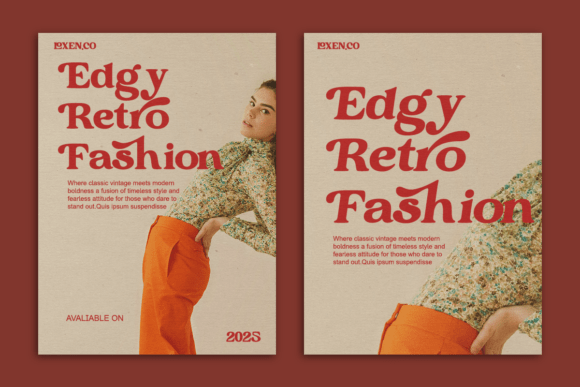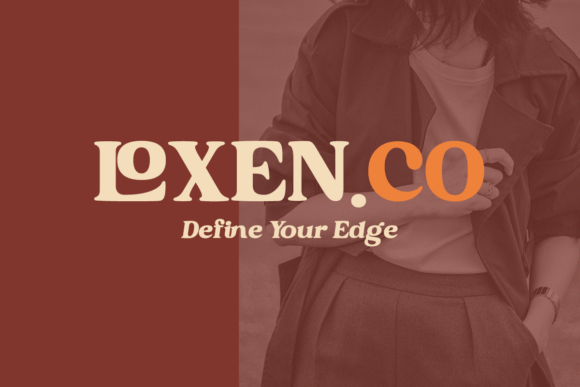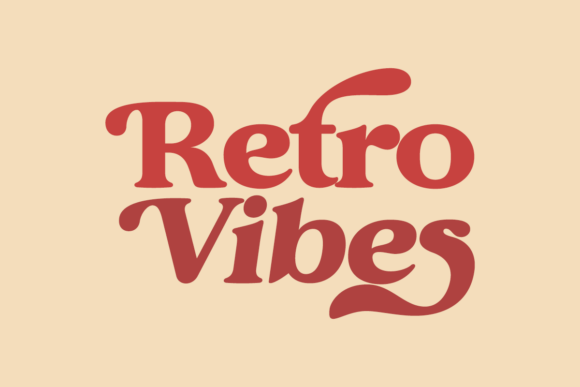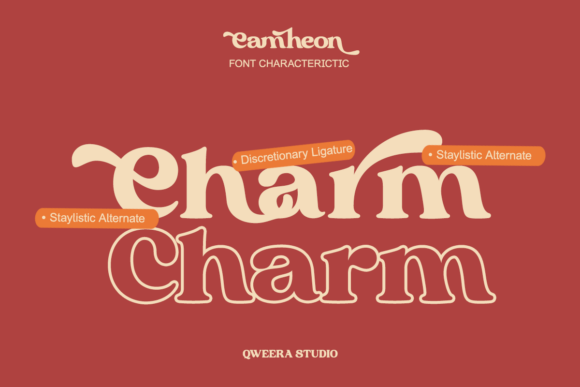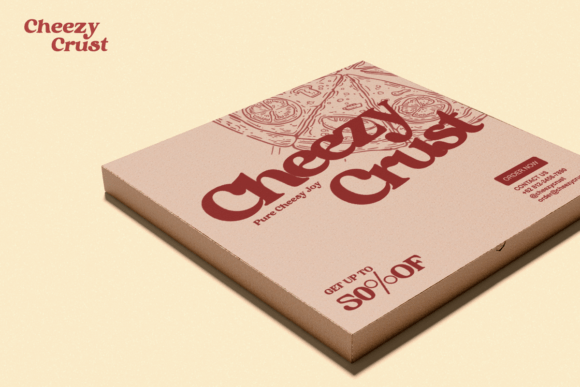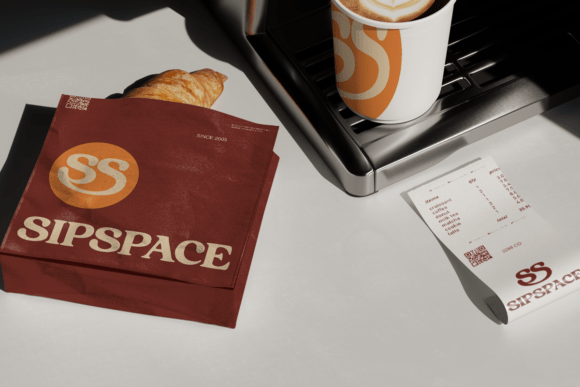
Introducing Camheon Font: Elevate Your Design with Sophistication
Step into a world of refined elegance with the Camheon font, a stunning display serif that seamlessly blends vintage charm with modern aesthetics. This exceptional typeface is designed to make a statement, perfect for designers and crafters seeking to add a touch of luxury to their creative projects.
The Art of Camheon: A Unique Display Serif
Camheon font stands out with its artistic ligatures and flowing curves, exuding a sense of sophistication and refinement. Its bold, high-contrast strokes command attention while maintaining a timeless appeal, making it an ideal choice for high-end branding, editorial layouts, and luxury packaging.
Whether you’re designing a chic fashion magazine, a boutique logo, or an elegant wedding invitation, the Camheon font provides a sense of refined elegance that instantly elevates your creative work. Its versatility makes it perfect for various applications, including:
- Invitations and event branding
- Web headers and digital marketing materials
- Luxury packaging and product design
- Fashion and editorial layouts
Typography that Leaves a Lasting Impression
Pair the Camheon typeface with a clean sans-serif for a balanced look, or use its decorative alternates to create one-of-a-kind typography that leaves a lasting impression. With PUA encoding included, all special characters and decorative elements are easily accessible, allowing you to experiment and push the boundaries of creative design.
Key Features of Camheon Font
- Artistic ligatures and flowing curves
- Bold, high-contrast strokes
- Timeless appeal with a vintage charm
- PUA encoding for easy access to special characters
- Decorative alternates for unique typography
Why Choose Camheon Font?
As a designer or crafter, you’re constantly seeking ways to elevate your creative work and stand out from the crowd. The Camheon font offers a unique combination of style, sophistication, and versatility, making it an essential addition to your toolkit.
With Camheon, you can:
- Add a touch of luxury to your designs
- Create memorable and impactful typography
- Enhance your brand’s visual identity
- Streamline your design process with easy-to-use characters
In conclusion, the Camheon font is a stunning display serif that offers a perfect blend of vintage charm and modern aesthetics. Its unique features, versatility, and timeless appeal make it an ideal choice for designers and crafters seeking to elevate their creative work. With Camheon, you can add a touch of sophistication and luxury to your designs, creating a lasting impression on your audience.